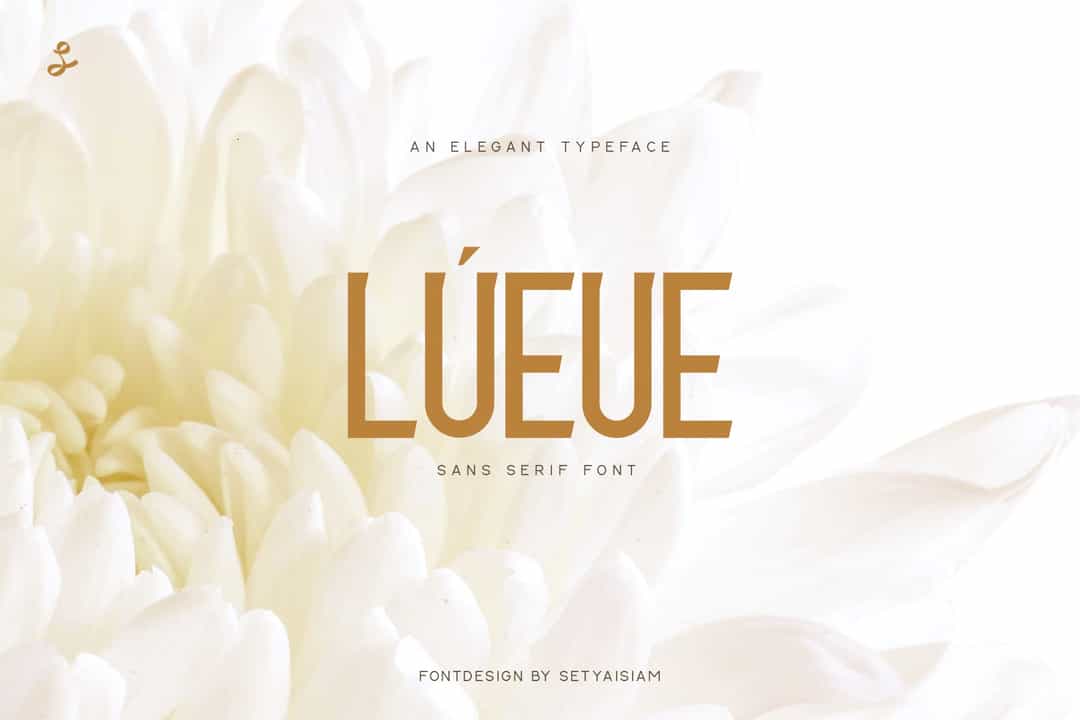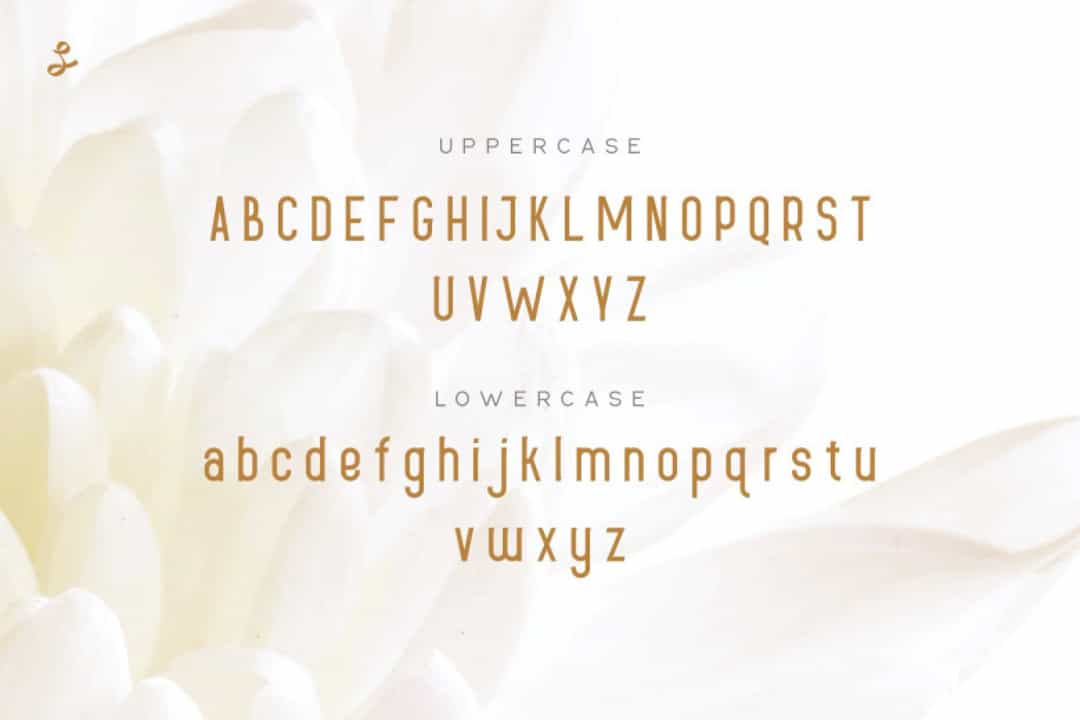
Lueue is a simple clean sans-serif font that is suitable for a variety of designs – adding this font to your projects is a great idea that will help make them unique! You will for sure be able to make a great style statement of who you are or where you stand.